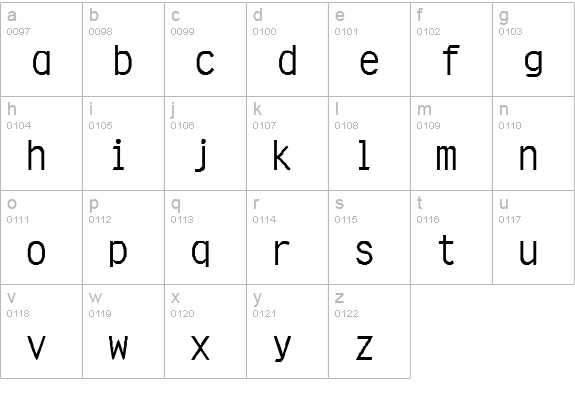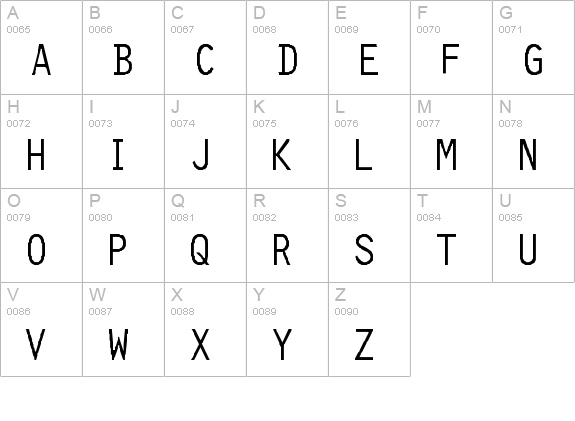
Myriade Font Details
Myriade font is a modern and elegant typeface designed to add a touch of sophistication to your projects. Its sleek lines and balanced proportions make it perfect for a wide range of design applications, from branding and editorial design to web layouts and packaging. The versatile Myriade font is available in a variety of weights and styles, allowing you to create dynamic and cohesive designs with ease. Whether you're looking for a bold headline font or a subtle body text option, Myriade has you covered. Best of all, Myriade font is completely free to download at FontsMarket.com. This means you can elevate your designs without breaking the bank, making it a valuable addition to any designer's toolkit. Don't miss out on the opportunity to enhance your projects with the timeless beauty of Myriade font.